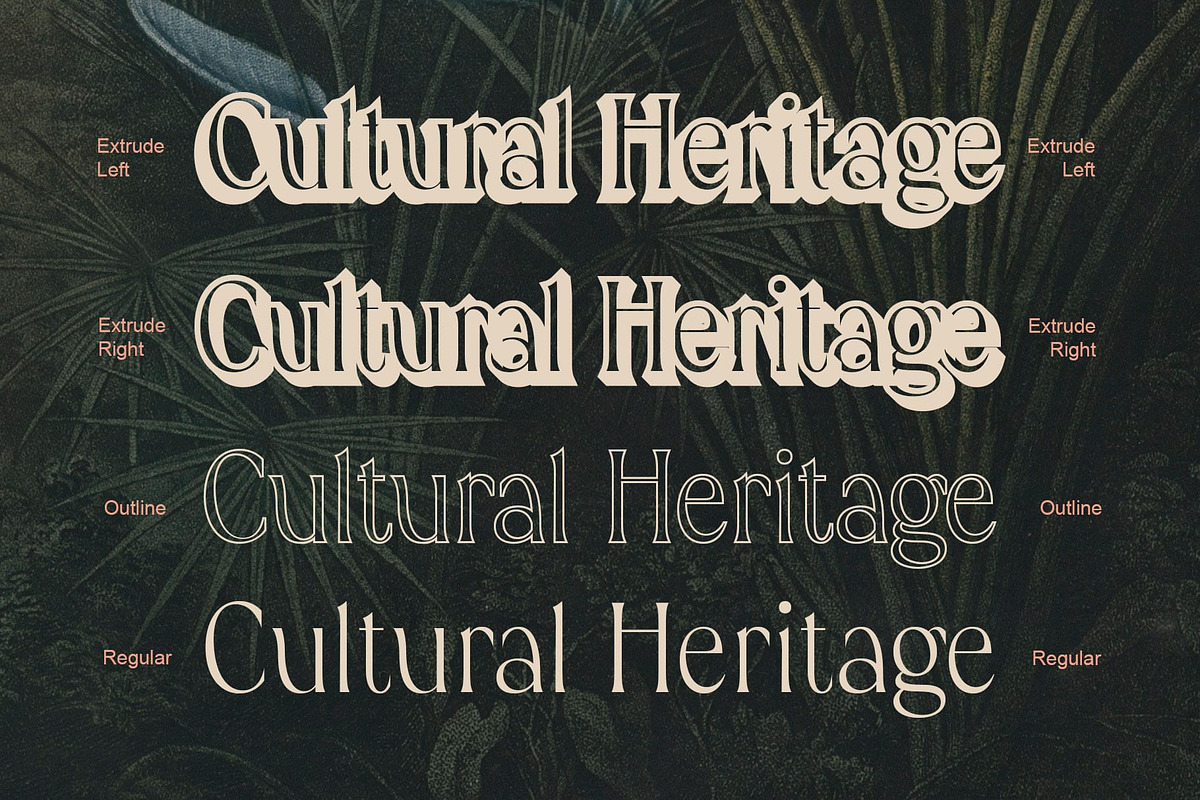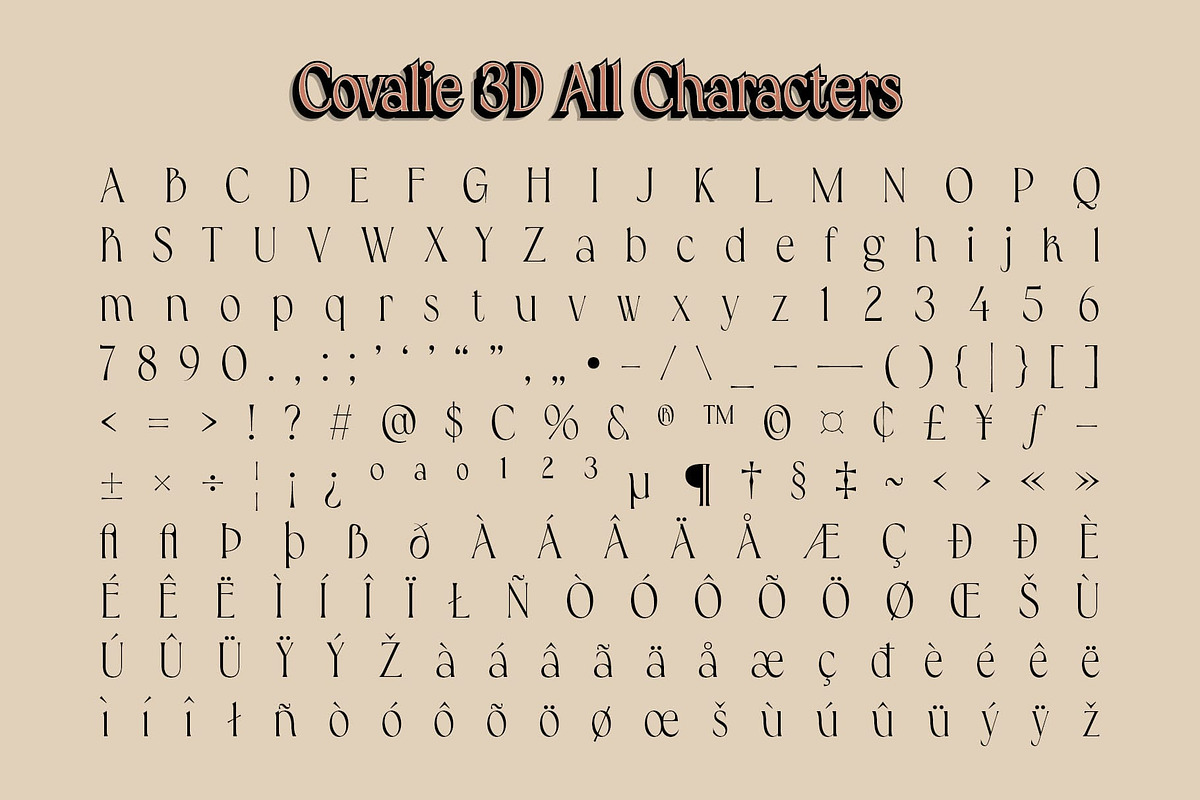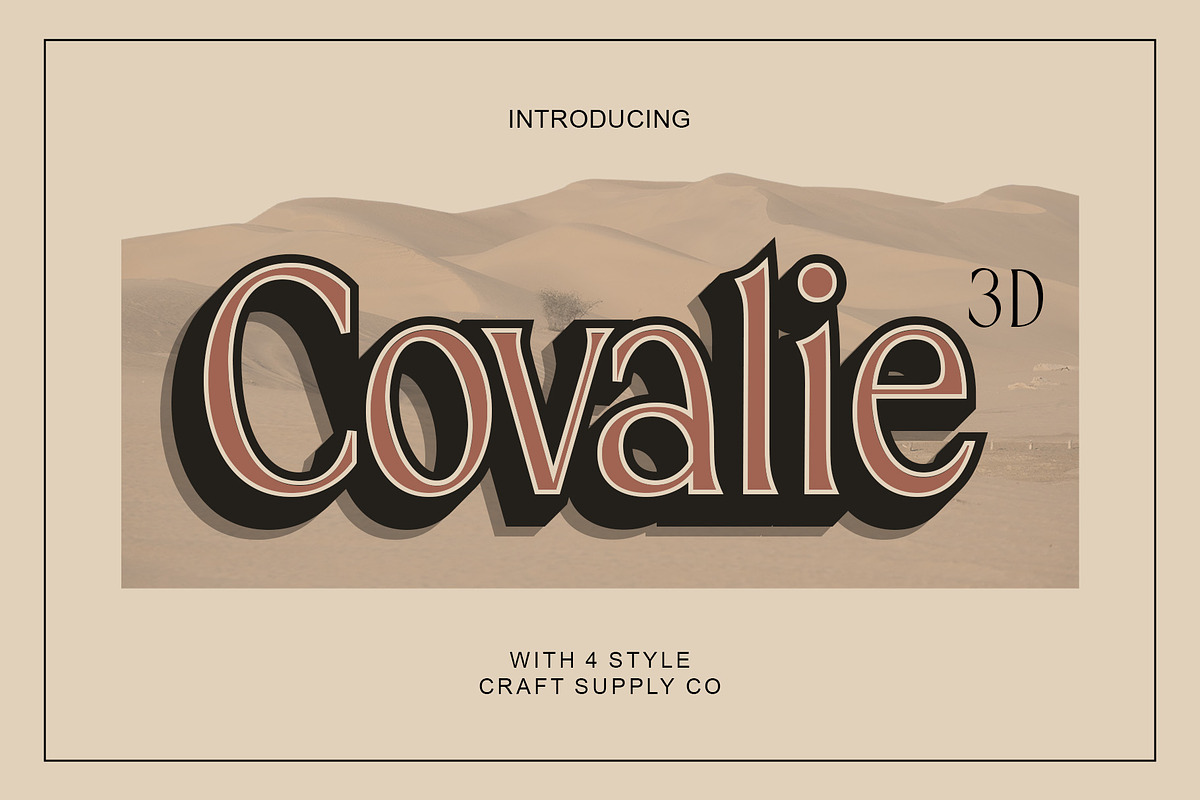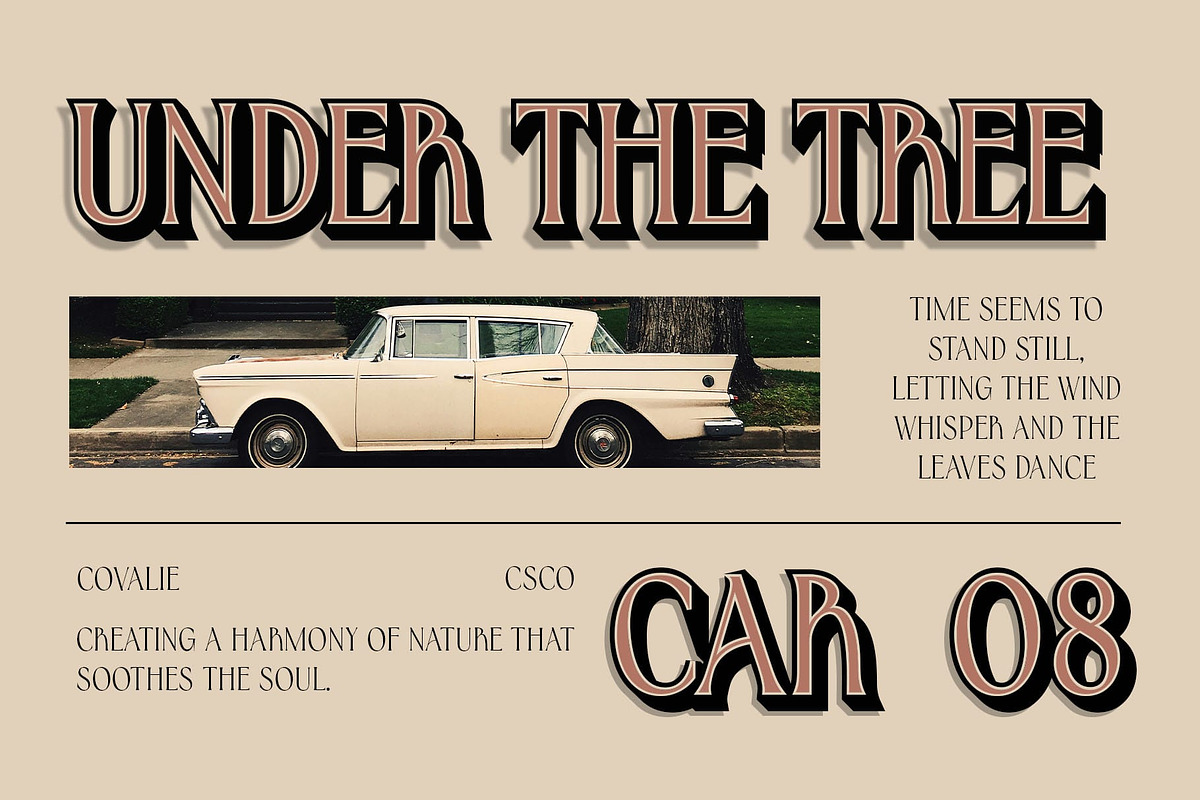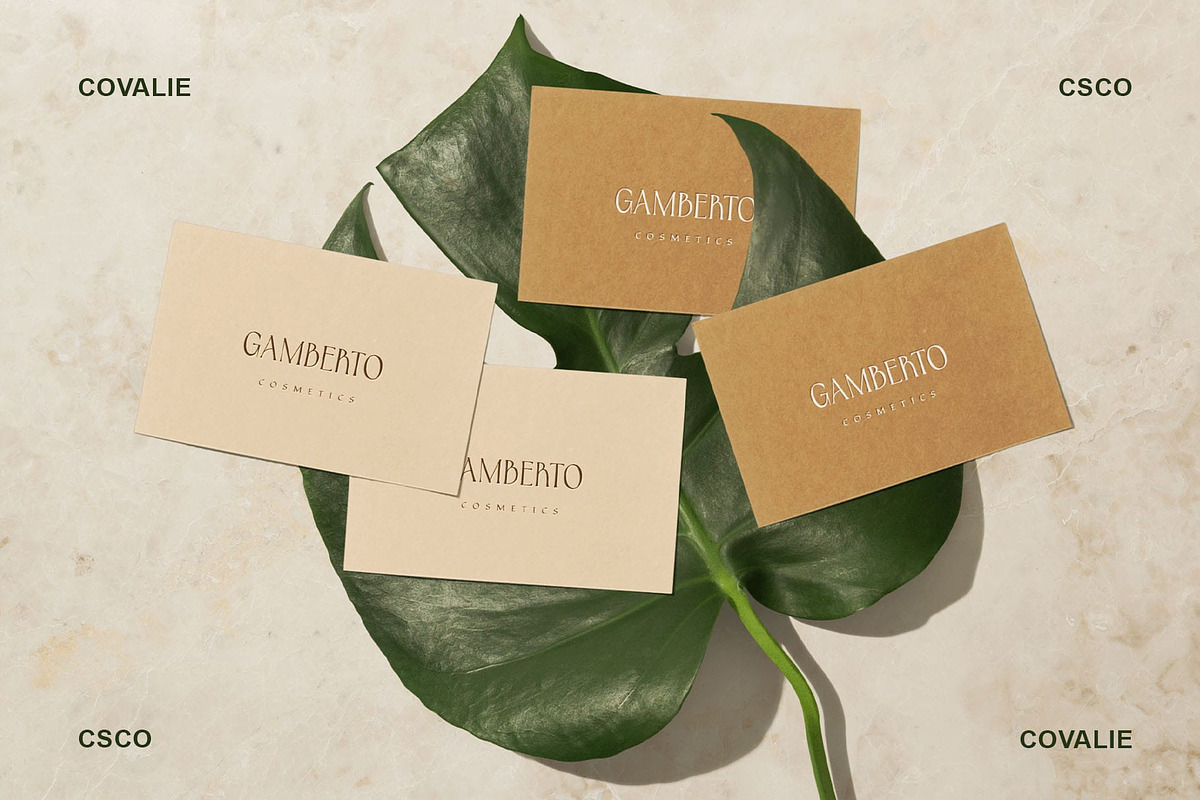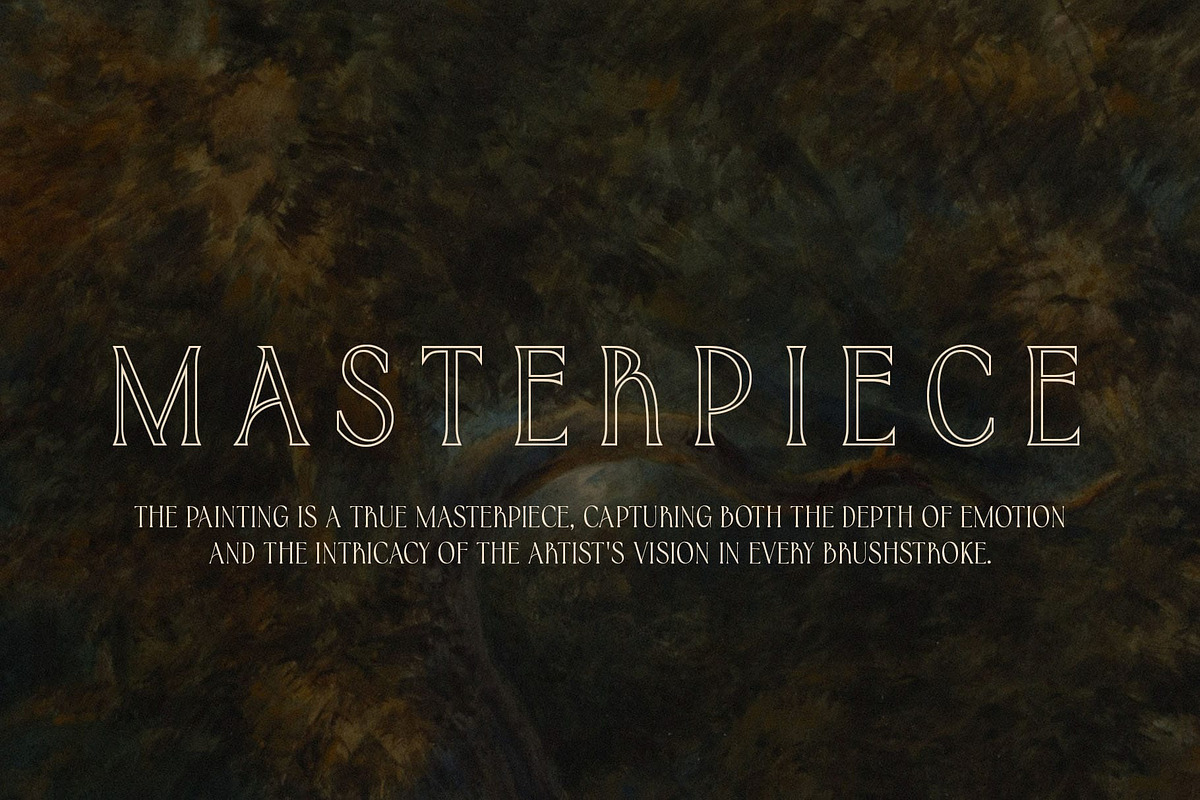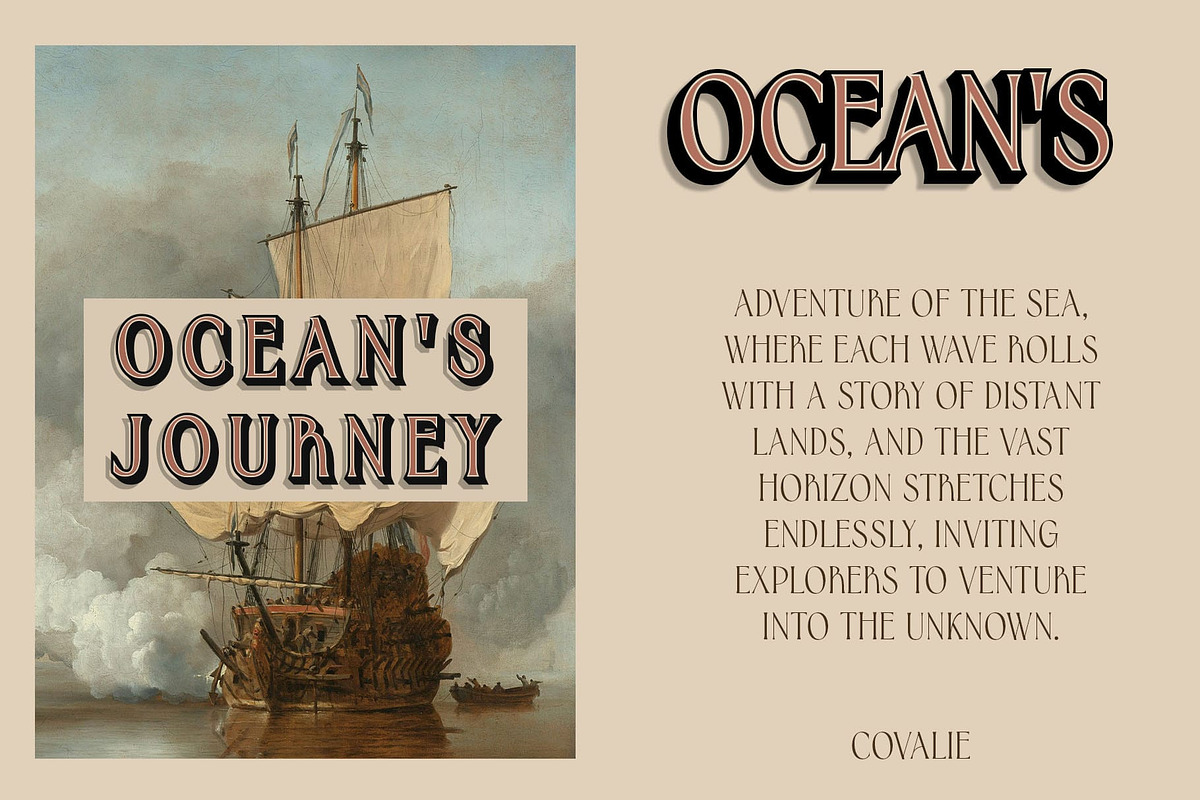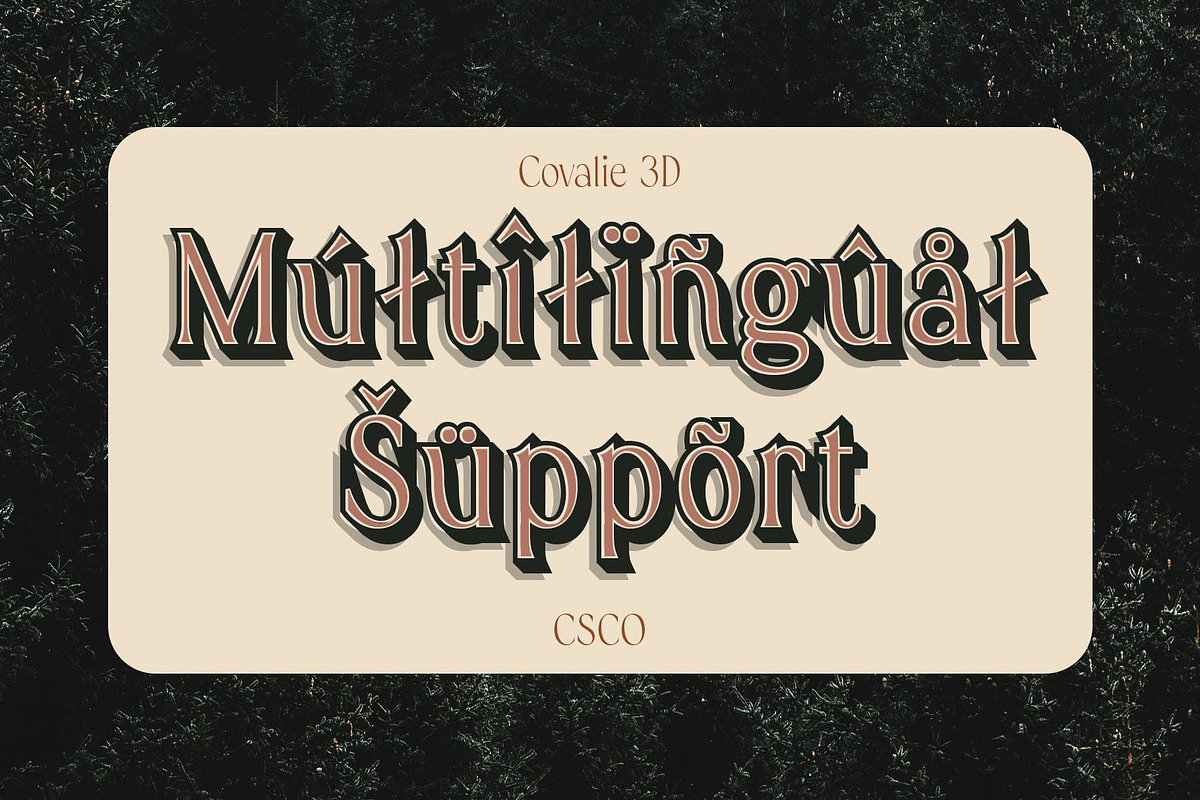
Covalie 3D
Covalie 3D Font: Elegance with Stunning Depth
Modern Serif Font with 3D Sophistication Covalie 3D is a modern serif font that embodies sophistication and beauty, enhanced by a striking 3D effect. Its gracefully sculpted letterforms, combined with dimensional depth, create a captivating and timeless aesthetic. This versatile typeface balances elegance and creativity, making it perfect for designs that demand both style and substance.
Luxurious and Aesthetic Appeal The classic charm of serif typography is reimagined with Covalie 3D’s innovative 3D elements, adding visual richness and depth. Its meticulous design ensures that each letter stands out, offering a polished and luxurious feel. The font captures attention while maintaining readability, making it ideal for a wide range of applications.
Perfect for Luxury and Artistic Designs Covalie 3D is designed to excel in luxury branding, formal invitations, and editorial layouts. Whether you’re crafting a high-end logo, designing elegant stationery, or creating a statement cover, this font ensures a unique and captivating impression.
Modern Elegance with Artistic Flair Blending the timeless charm of serif fonts with a modern, artistic edge, Covalie 3D offers a unique combination of sophistication and contemporary design. It’s perfect for creative projects that seek to balance beauty, elegance, and innovation.
- Covalie Regular
- Covalie Outline
- Covalie Extrude Right
- Covalie Extrude Left